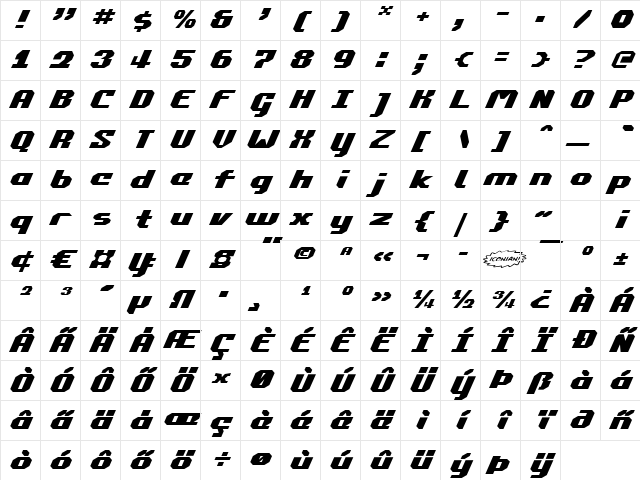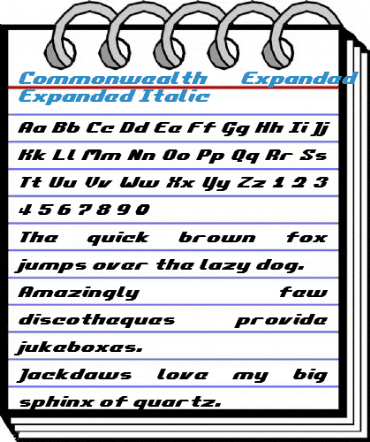
Commonwealth Expanded Italic Expanded Italic
Style: Expanded Italic
Design Context for Commonwealth Expanded Italic
Commonwealth Expanded Italic is a composed and adaptable typeface that performs quietly and consistently across a wide range of design contexts. The slanted form adds forward momentum and visual energy.
Pro Tip: Use Commonwealth Expanded Italic for emphasis, pull quotes, and subheadings where its slanted energy can add rhythm to the layout.